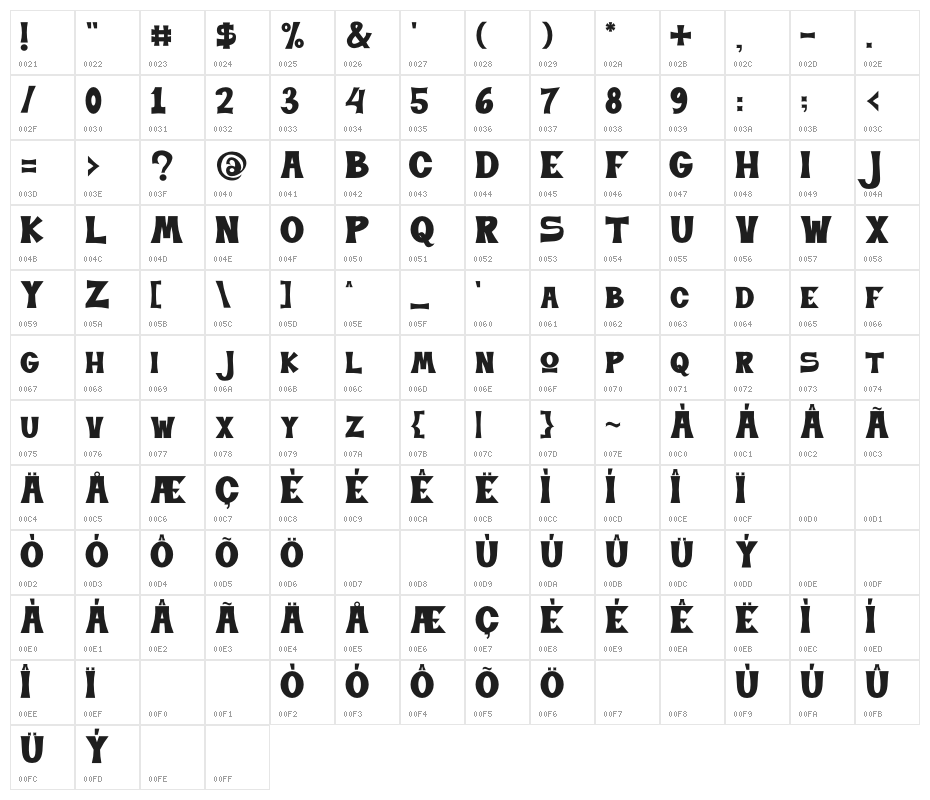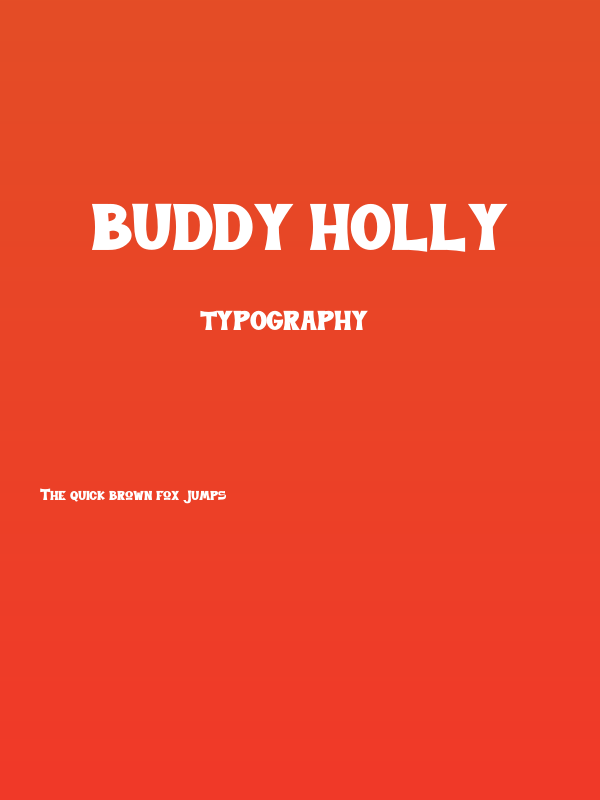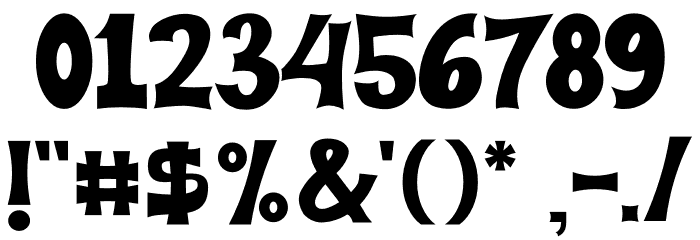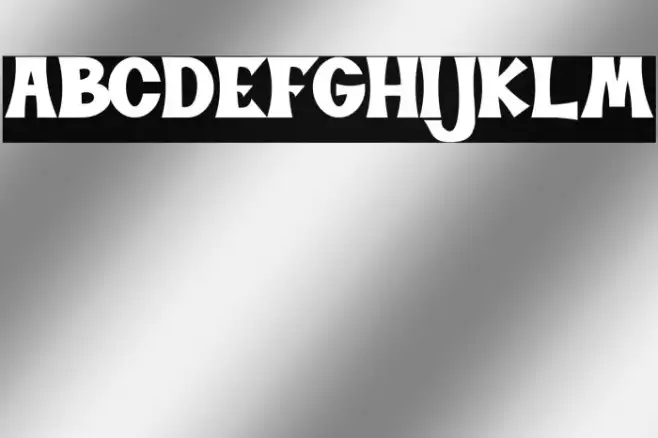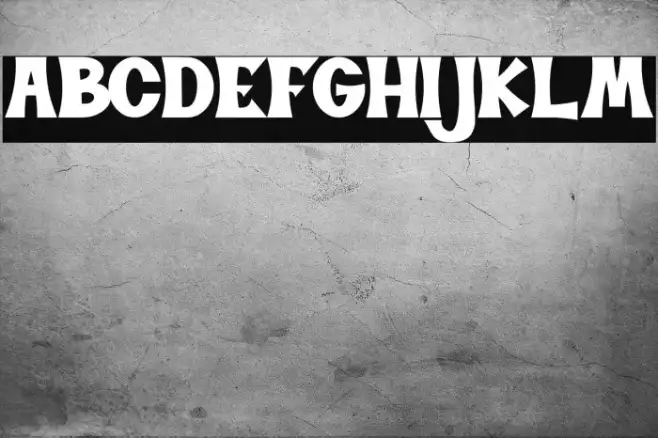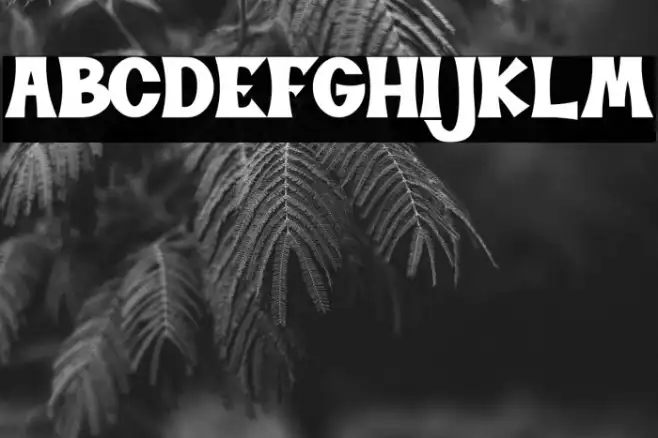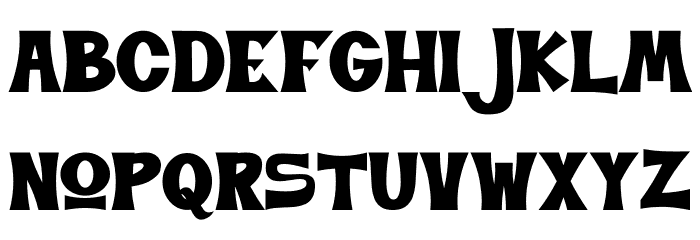
BUDDY HOLLY Font
BUDDY HOLLY Description
A bold, decorative font with a playful and retro style, featuring exaggerated serifs and unique character shapes.
| Overall Style | Retro, Decorative |
| Proposed Projects | Posters, album covers, retro-themed designs. |